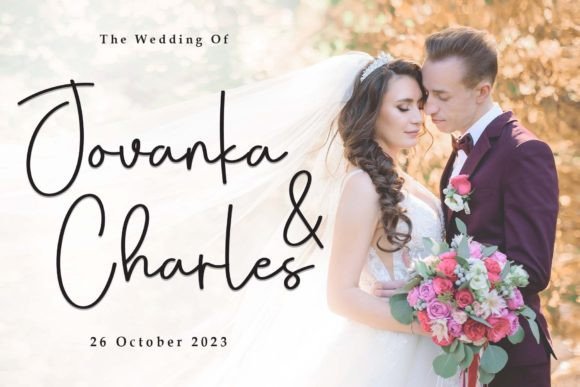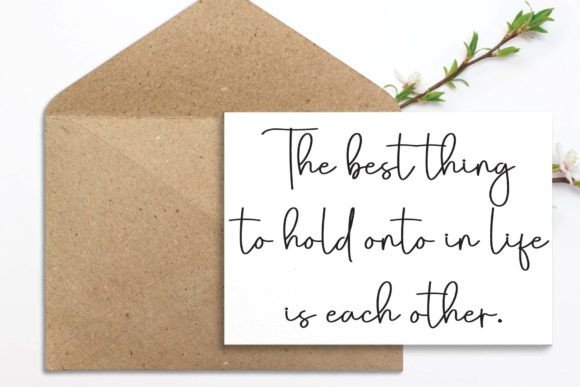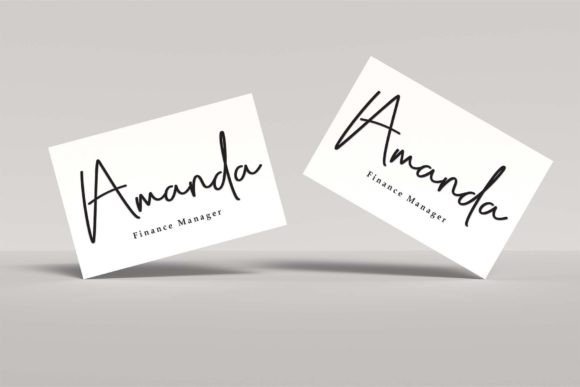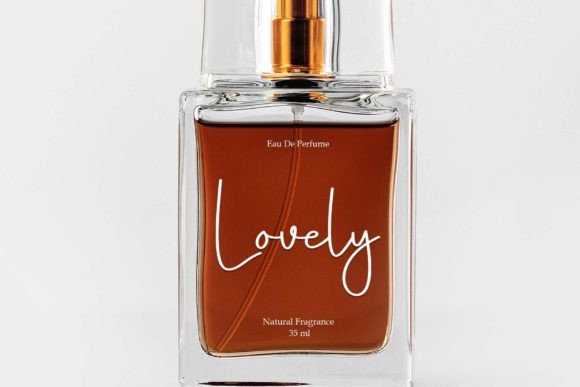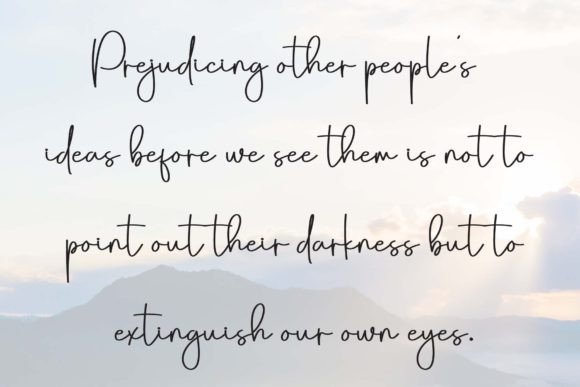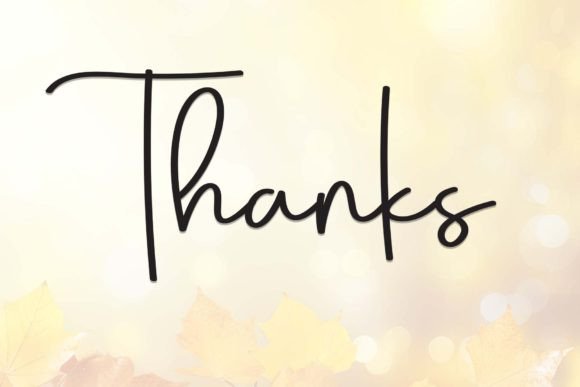
Happy October Font: The Perfect Addition to Your Design Arsenal
As the seasons change and October arrives, designers and crafters are on the lookout for fresh and exciting fonts to elevate their projects. If you’re in search of a font that embodies warmth, friendliness, and a touch of whimsy, look no further than the Happy October Font. This sweet and friendly handwritten font is sure to capture your heart and become a staple in your design collection.
The Charm of Happy October Font
Happy October Font boasts a natural and unique style that makes it incredibly versatile. Its handwritten charm is perfect for a wide range of designs, from autumnal-themed projects to more general use cases. The font’s friendly and approachable demeanor ensures that it will resonate with your audience, making it an excellent choice for designs that aim to connect with viewers on a personal level.
What Makes Happy October Font Stand Out?
• Natural and Unique Style: The font’s organic feel and distinct character set make it a standout in any design.
• Versatility: From seasonal projects to general use, Happy October Font adapts seamlessly to various design needs.
• Friendliness and Approachability: The font’s warm and inviting tone helps create a connection with your audience.
• Limitless Creative Potential: As the font’s description aptly puts it, “The only limit is your imagination!”
Design Possibilities with Happy October Font
The possibilities are indeed endless when working with Happy October Font. Here are a few ideas to get you started:
• Autumn and Halloween-themed Designs: Create eye-catching posters, invitations, and social media graphics that capture the essence of the season.
• Branding and Packaging: Use Happy October Font to add a personal touch to your brand’s identity and packaging materials.
• DIY Projects and Crafts: Incorporate the font into your handmade crafts, such as greeting cards, scrapbooking, and journaling.
• Digital Products: Develop unique digital products, like printable art, planners, and wallpapers, featuring Happy October Font.
Tips for Working with Happy October Font
To make the most of Happy October Font, consider the following tips:
• Experiment with Colors: Pair the font with seasonal colors like orange, yellow, and red to create a cohesive autumnal look.
• Play with Texture and Patterns: Add depth and interest to your designs by incorporating textures and patterns that complement the font’s natural feel.
• Mix and Match with Other Fonts: Combine Happy October Font with other fonts to create visually appealing contrasts and hierarchies.